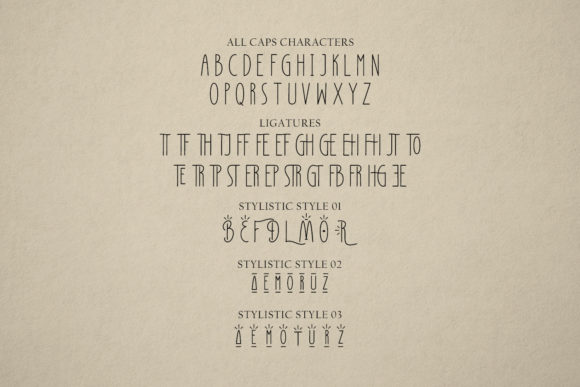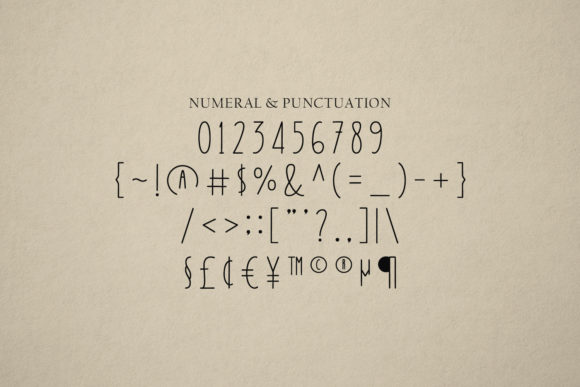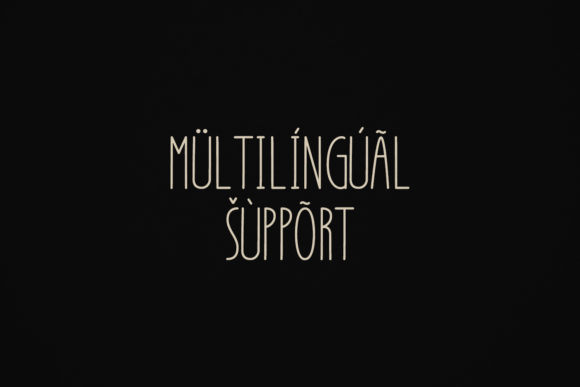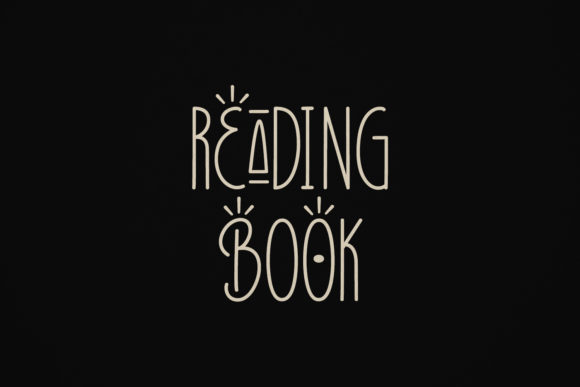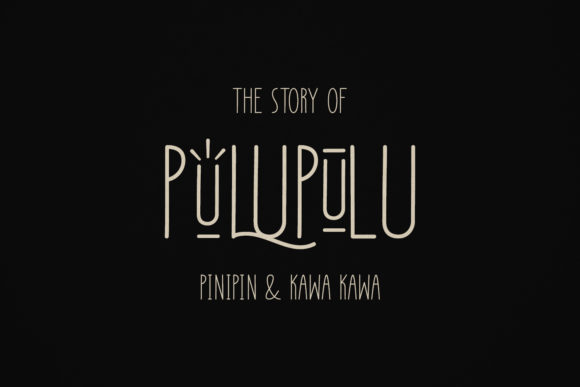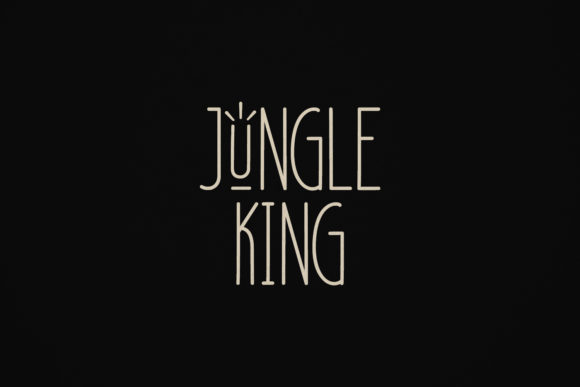
Discover the Perfect Blend of Handcrafted Charm and Modern Elegance
As designers, we’ve all been there – staring at a blank canvas, searching for the perfect font to bring our vision to life. It’s that moment of creative frustration when the right typeface can make all the difference. And that’s exactly what the Frend Strep Font is designed to do – add a touch of authentic handcrafted charm to your designs.
This friendly and narrow Sans Serif font is perfectly suited for a wide range of projects, from signature and stationery to logo and typography quotes. With its versatility and unique character, the Frend Strep Font is a valuable addition to any designer’s toolkit. Whether you’re looking to create a lasting impression or simply add some personality to your work, this font is sure to deliver.
Frend Strep Font Key Features
- Unique Characteristics: Frend Strep Font features a unique blend of geometric and organic elements, resulting in a distinctive and modern aesthetic that sets it apart from other sans-serif fonts.
- Font Weight: Frend Strep Font is available in multiple font weights, ranging from Light to Bold, allowing designers to choose the perfect weight to suit their specific design needs.
Frend Strep Font Review
I recently had the chance to work with the “Frend Strep Font” and here’s my honest review.
- Unique Character: Frend Strep Font has a unique character that sets it apart from other fonts. Its quirky and playful vibe makes it perfect for creative projects.
- Legibility: Despite its unusual design, the font is surprisingly legible, making it a great choice for body text or headlines.
- Lack of Consistency: While the font is unique and interesting, it can be inconsistent in its design, which can make it difficult to use in certain situations.
Overall, I think Frend Strep Font is a great choice for designers looking for a unique and playful font. While it has some limitations, its customization options and legibility make it a great choice for creative projects. However, it may not be the best choice for more formal or professional projects.
Frend Strep Font Practical Application Guide
Frend Strep Font is ideal for designs that require a unique and playful touch, such as:
- Children’s books and educational materials
- Playful advertisements and marketing materials
- Handwritten-style fonts for digital designs